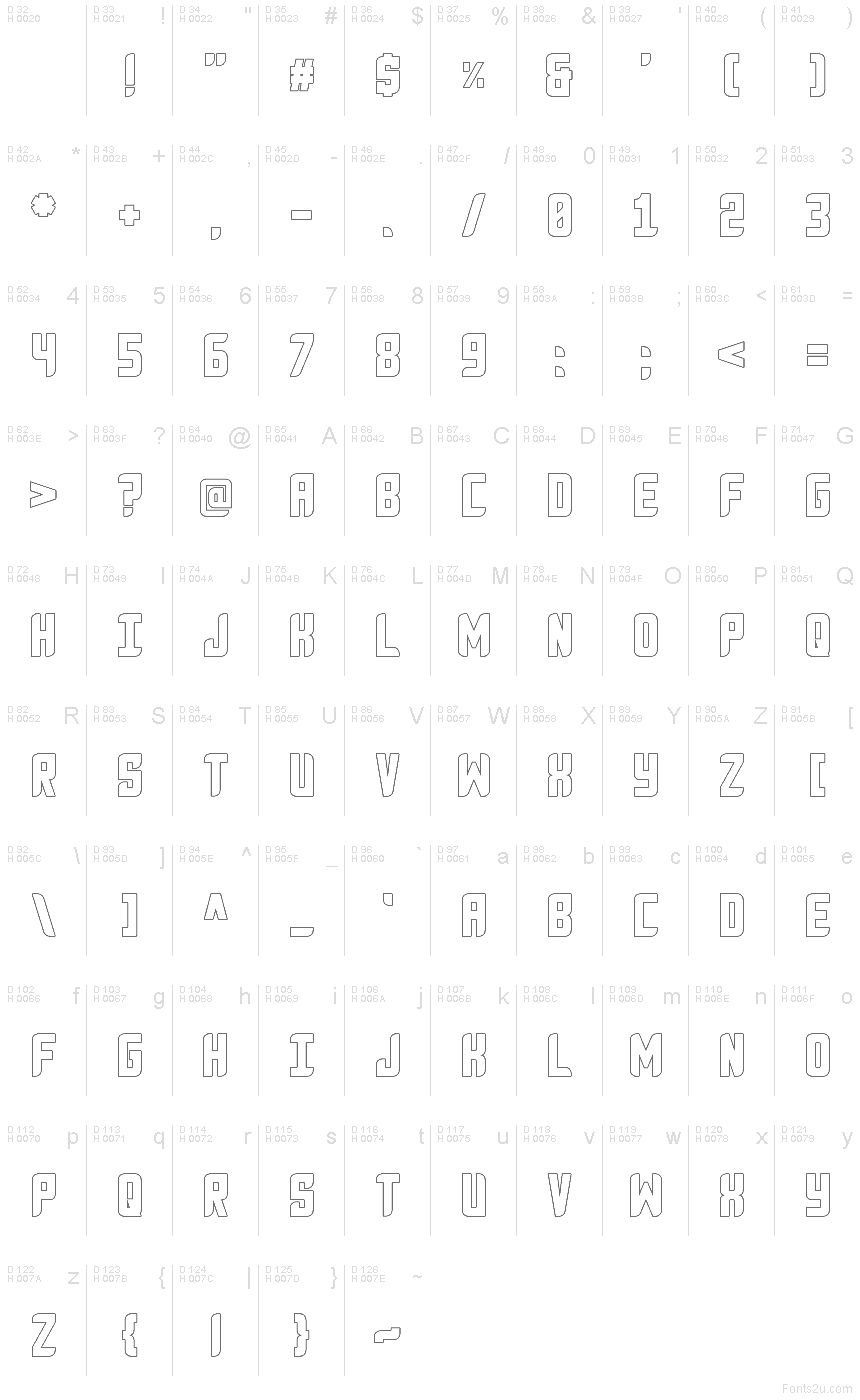
Anvyl Outline Light
Anvyl Outline Light font by Matt Wilson is a modern display typeface known for its outlined style, bold weight, and condensed width. Carefully combining sharp corners with soft curves, it carries an industrial feel while remaining approachable. The geometric structured characters fall into the modernist category, allowing for futuristic and impactful typography designs that catch the eye of viewers.
Based on Anvyl by Matt Cole Wilson & Dmitry Sivukhin. Modified by Mironenko Nikolay. 2025 FontLab-8